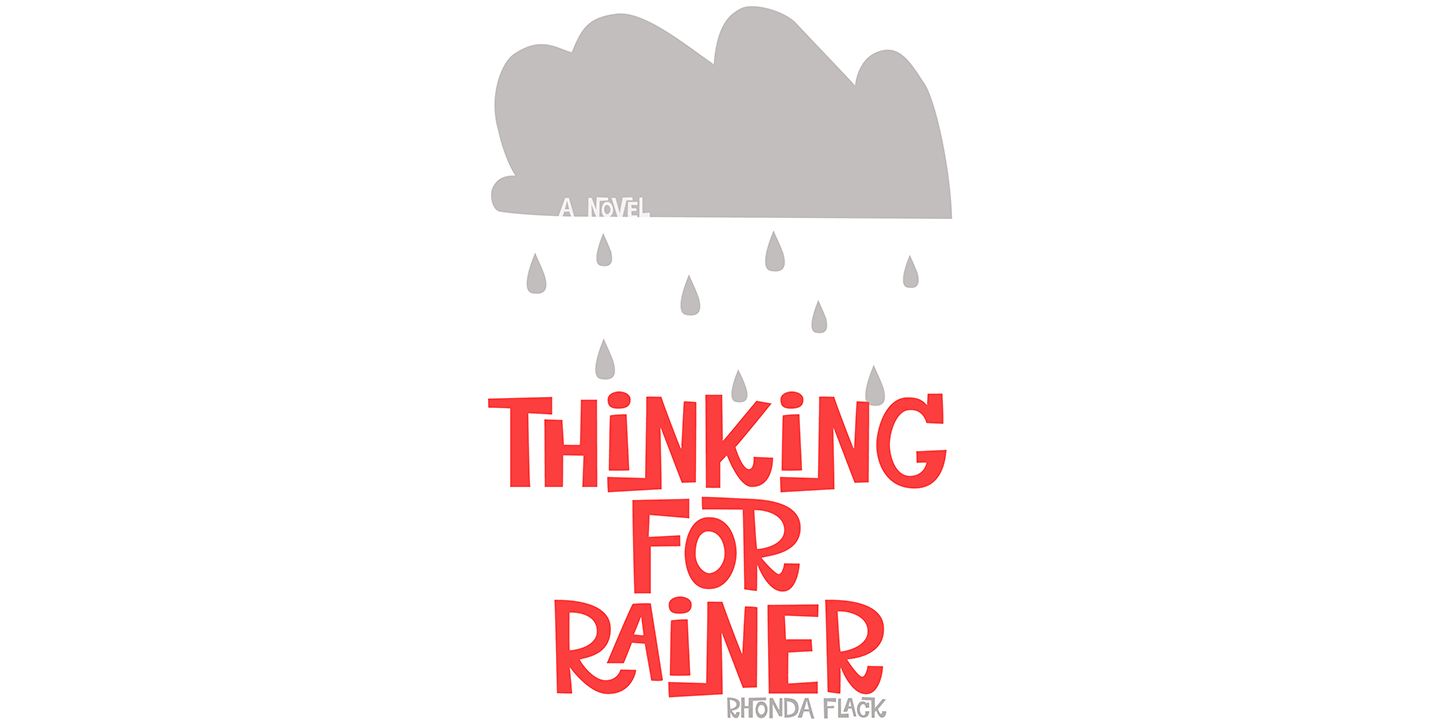
Where to Use Rowboat Font?
This delightful font shines in:
• Artisanal product packaging
• Children's book designs
• Handmade craft labels
• Café and bakery branding
• Quirky social media graphics
Why Rowboat Font is Special
Rowboat captures attention with its:
→ Playful yet legible handwritten style
→ Slightly uneven baseline for authentic charm
→ Perfect imperfections that feel human-made
→ Versatile appeal from rustic to modern cute
Rowboat Font Family Includes
Regular and Bold weights
Alternative characters for key letters
Special nautical-themed dingbats
Multilingual basic support
✓ 500+ glyphs with fun extras
✓ Easy-to-use OpenType features
✓ Excellent readability in both large and small sizes